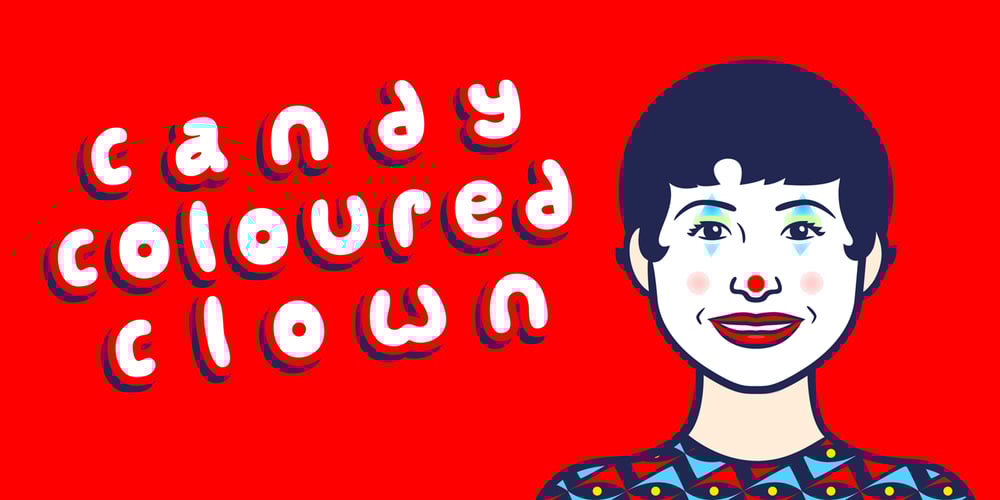
Candy Coloured Clown Font Family was designed by Jeremy Tenison-Woods and published by Jeremy Woods. Candy Coloured Clown contains 1 styles and family package options. Candy coloured clown is a unique and quirky display font created to invoke feelings of fun and carelessness that one might experience while visiting a carnival or circus.The font has a comic strip or cartoon aesthetic with it’s thick outline and bubbly appearance.Candy Coloured Clown features a broad range of highly legible characters in both uppercase and lowercase, making it a guaranteed eye catcher.